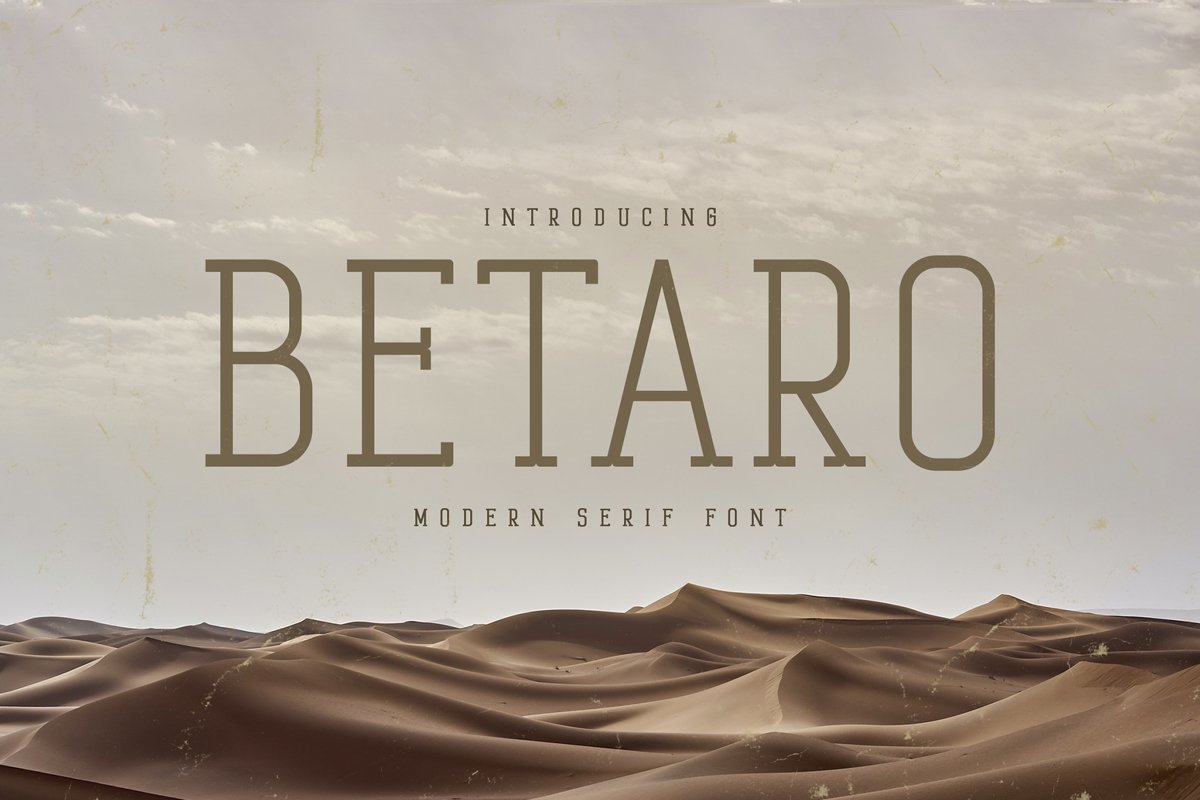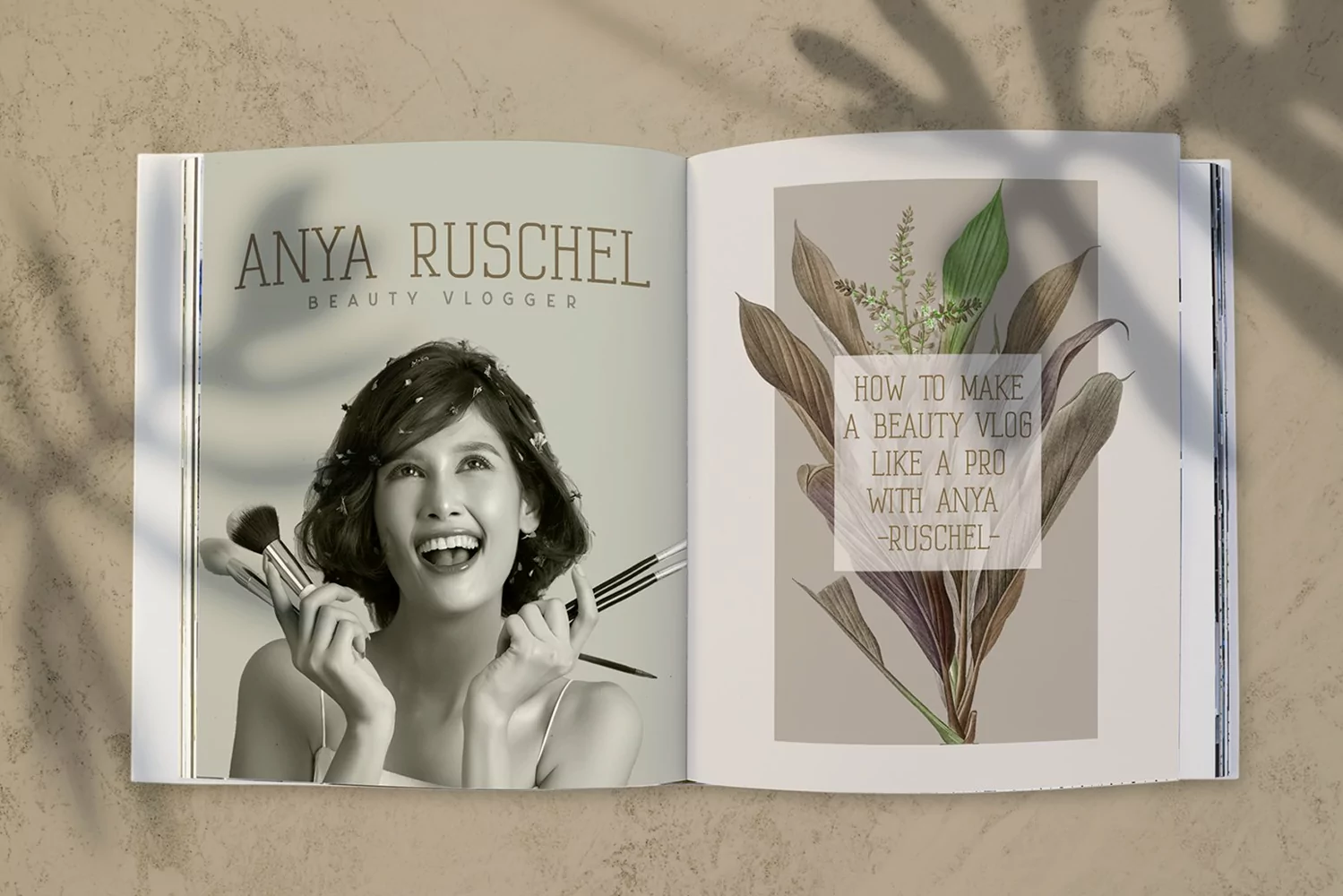
Betaro is a serif typeface. Perfect for display, quotes, book cover, business card, mockup, merchandise, packaging, tittle, header, branding, logo, logotype, badges, emblem and many more.